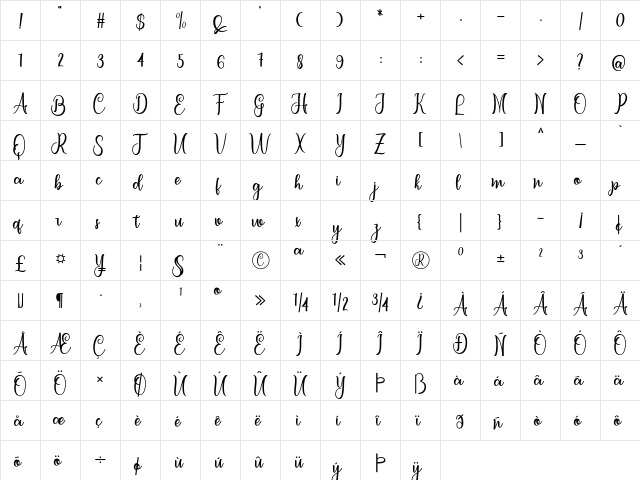
letterbest Regular
| Foundry | Syahputra/Bexxtype |
| Designer | Syahputra/Bexxtype |
letterbest is a composed and adaptable typeface that performs quietly and consistently across a wide range of design contexts.